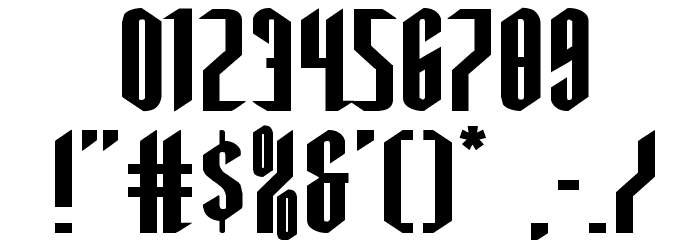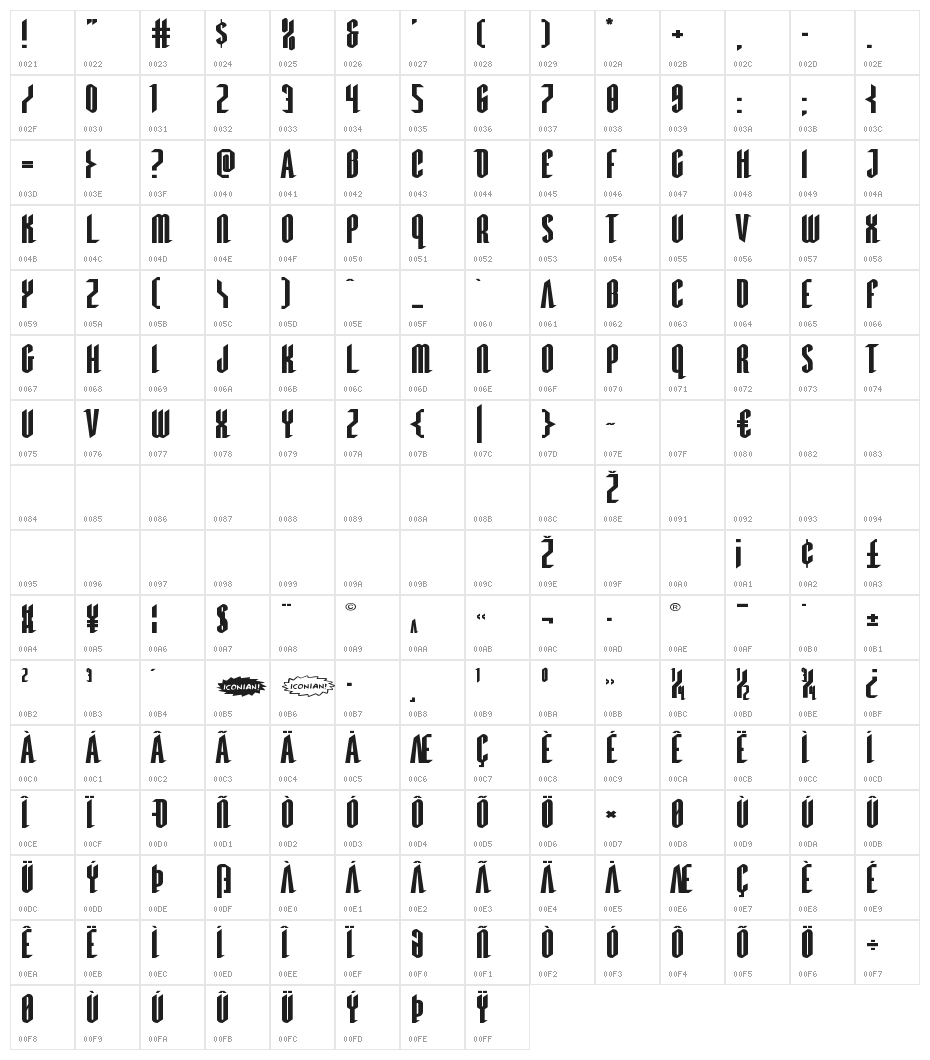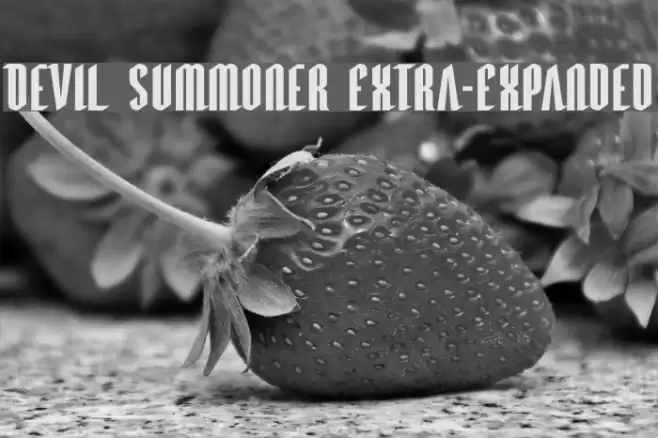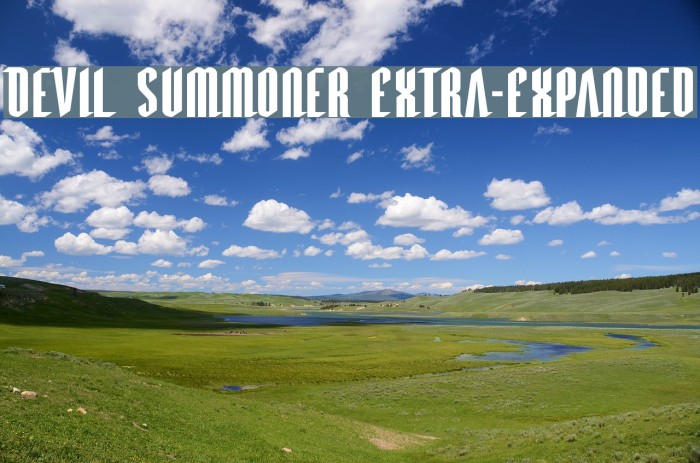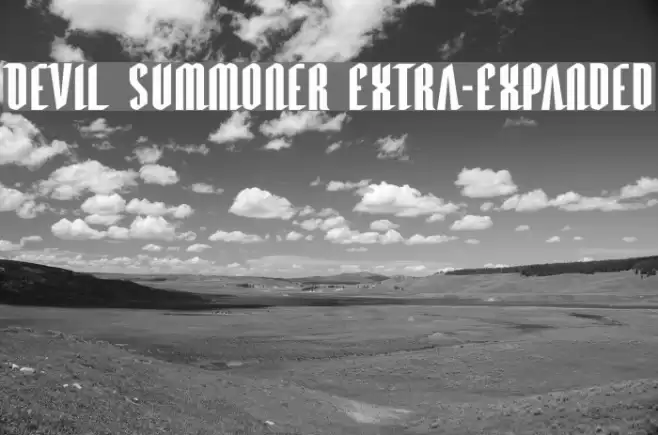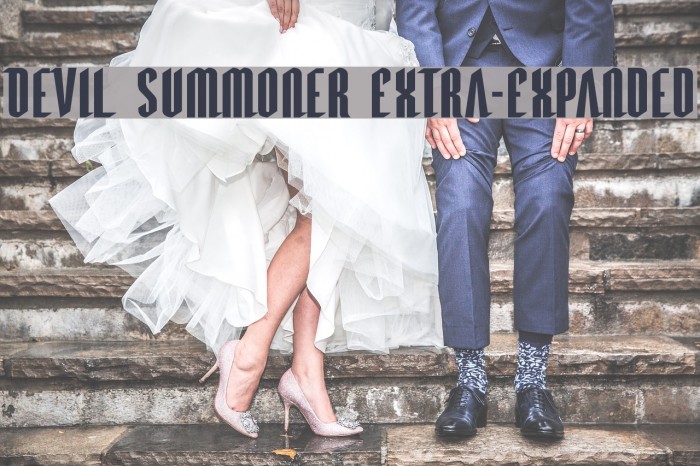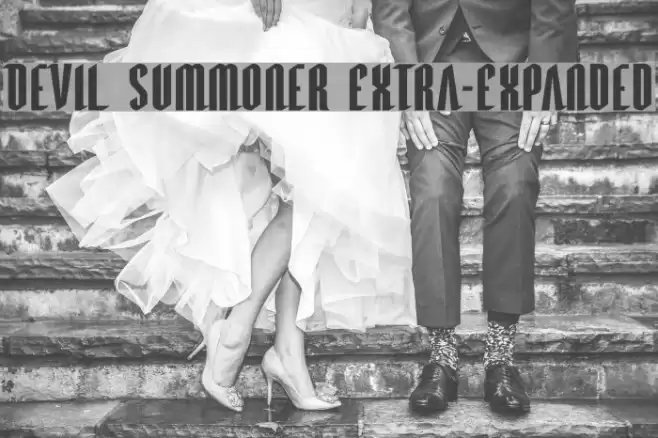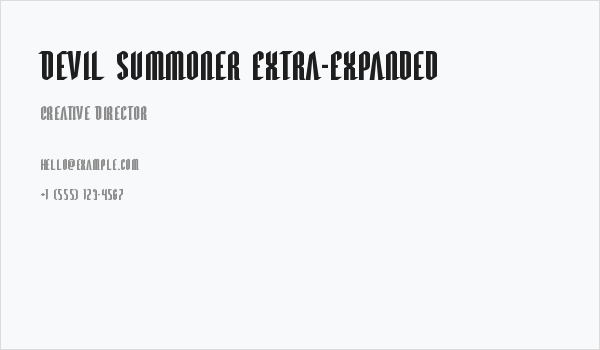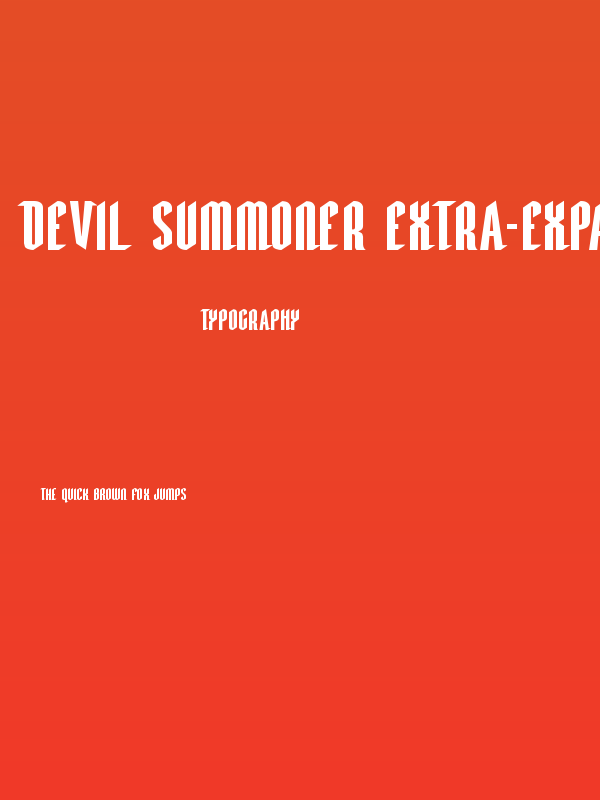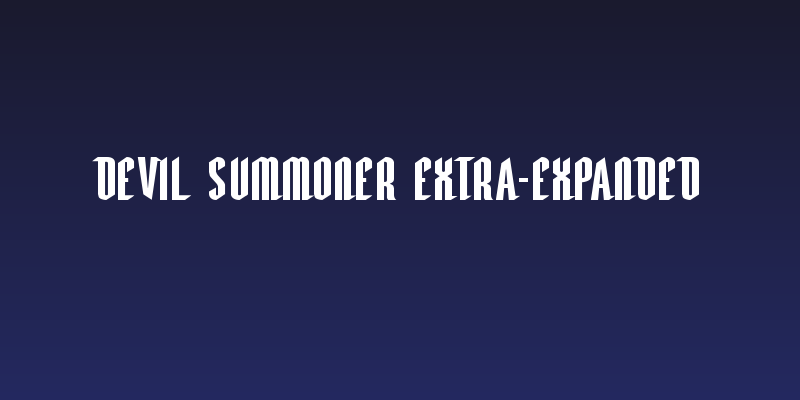
Devil Summoner Extra-Expanded Font
Devil Summoner Extra-Expanded Description
This font features a bold and striking design with a distinctly angular and geometric style. The characters are tall and narrow, with sharp edges and a strong vertical emphasis. The uppercase and lowercase letters maintain a consistent height, creating a uniform appearance. The numbers and special characters follow the same design principles, ensuring cohesiveness across all elements. The font's unique style makes it suitable for attention-grabbing headlines and titles, where a dramatic and impactful look is desired.